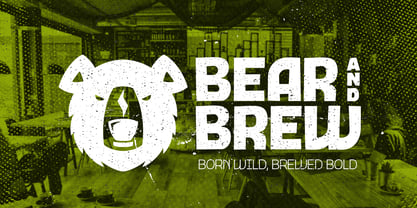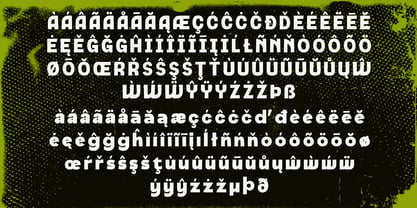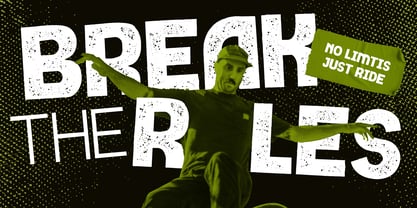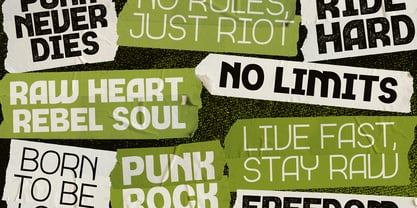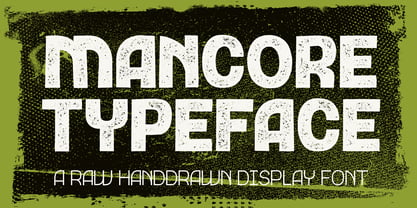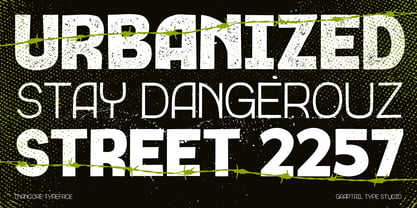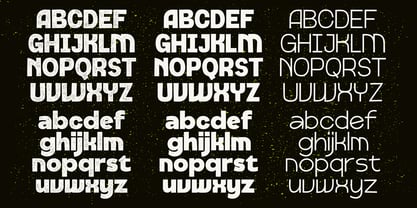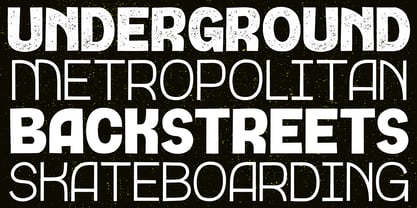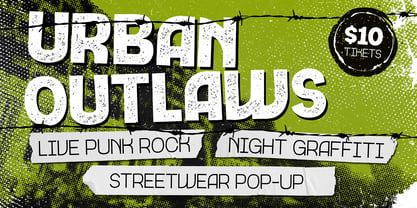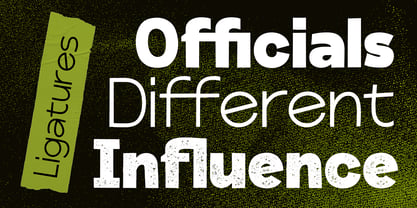
Mancore
by Graptail
The Mancore Font Family was designed by Teuku Deky Firnanda and published by Graptail. Mancore contains 3 styles and family package options. More about this family
MANCORE is a bold handdrawn display font with a raw, condensed, and expressive personality. Featuring strong uppercase letterforms, slightly irregular shapes, and a handcrafted construction, MANCORE brings an authentic underground character to every design.
Its rugged appearance works especially well with distressed textures, vintage print aesthetics, streetwear graphics, punk-inspired artwork, alternative branding, and poster design. The condensed proportions allow the typeface to create a powerful visual statement while maintaining a distinctive handmade feel.
MANCORE is designed for creatives looking to add a raw, rebellious, energetic, and imperfect human touch to their typography. It works beautifully for large headlines, posters, apparel, album artwork, logos, labels, stickers, packaging, and experimental graphic design.